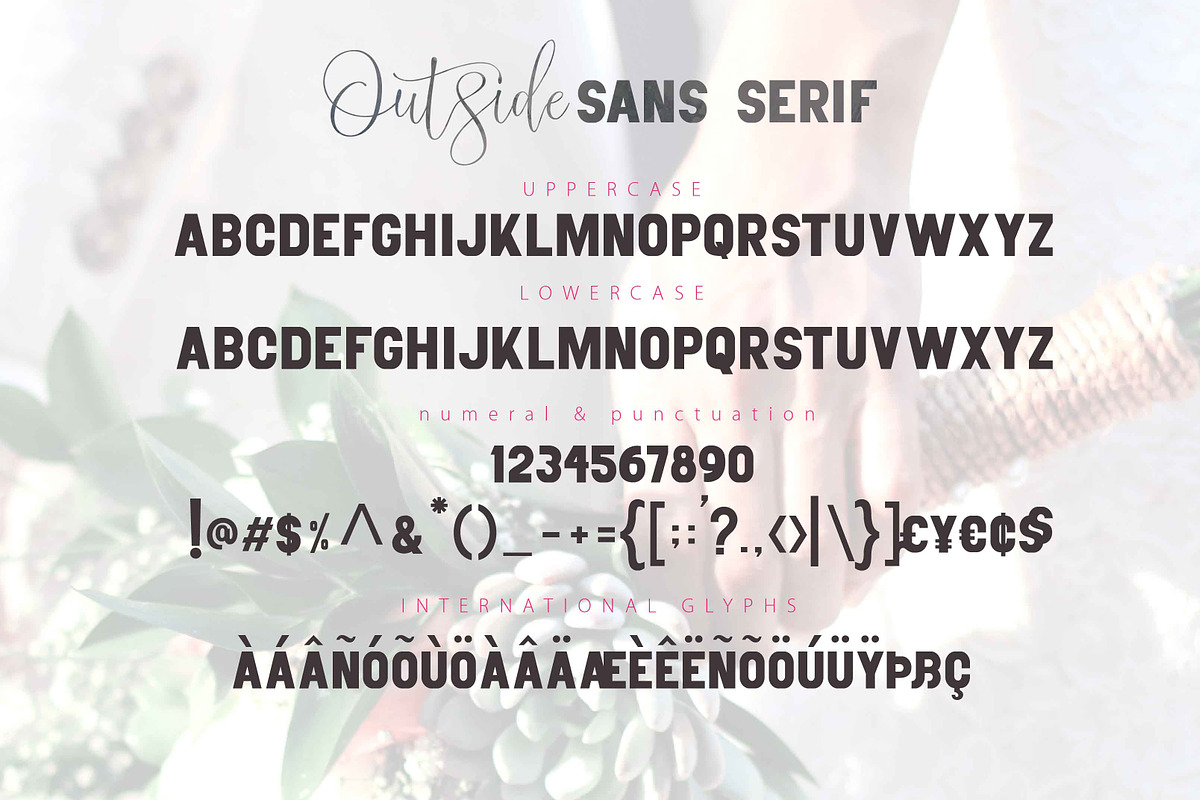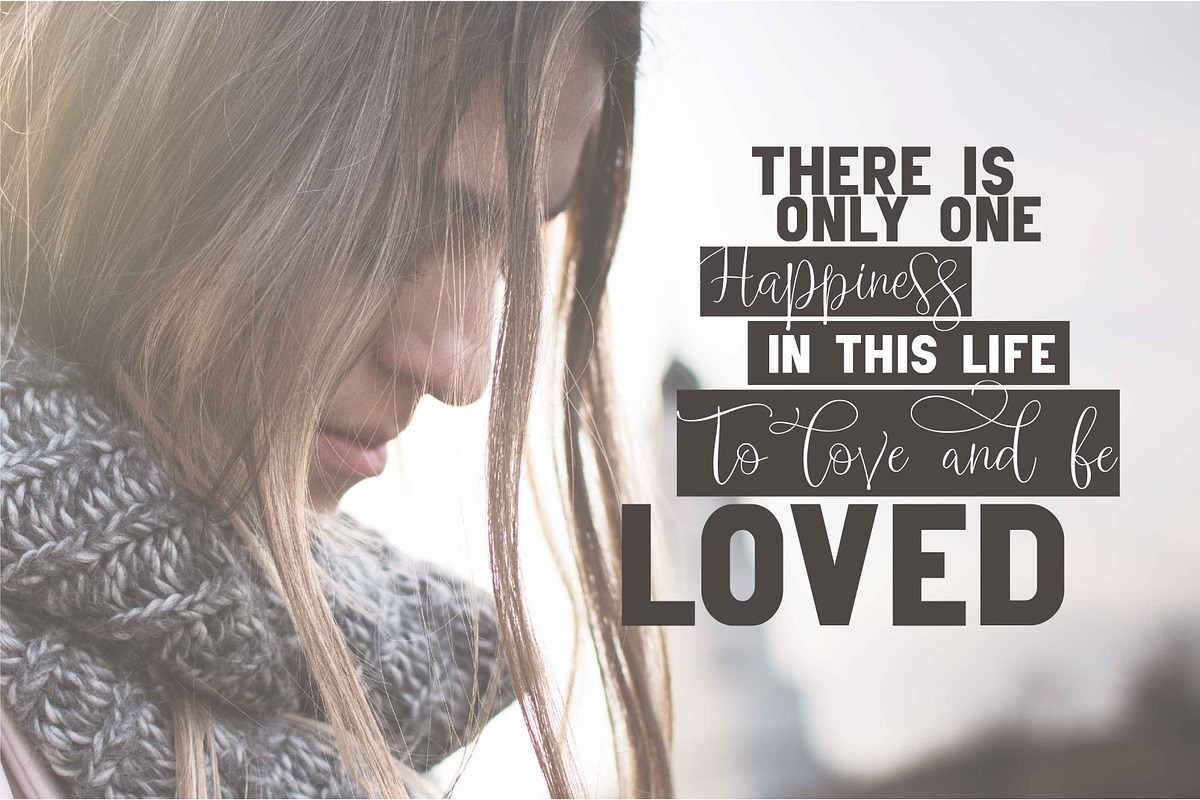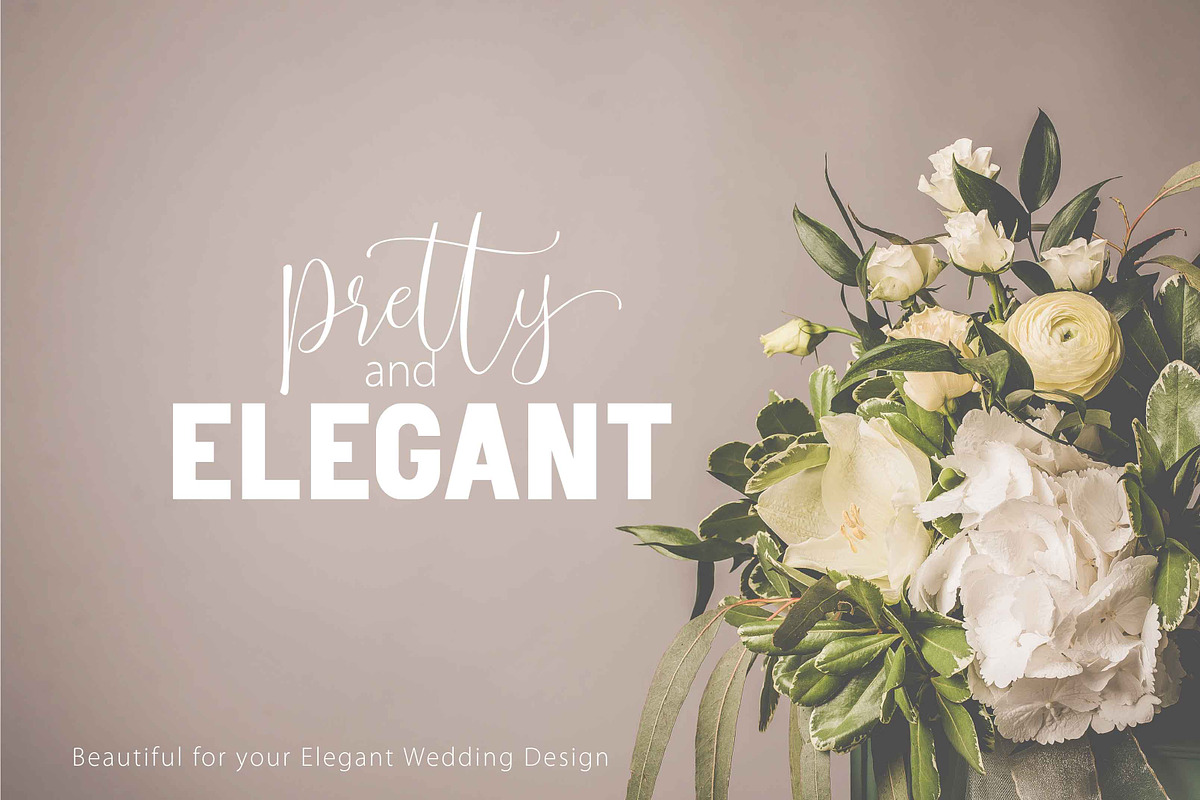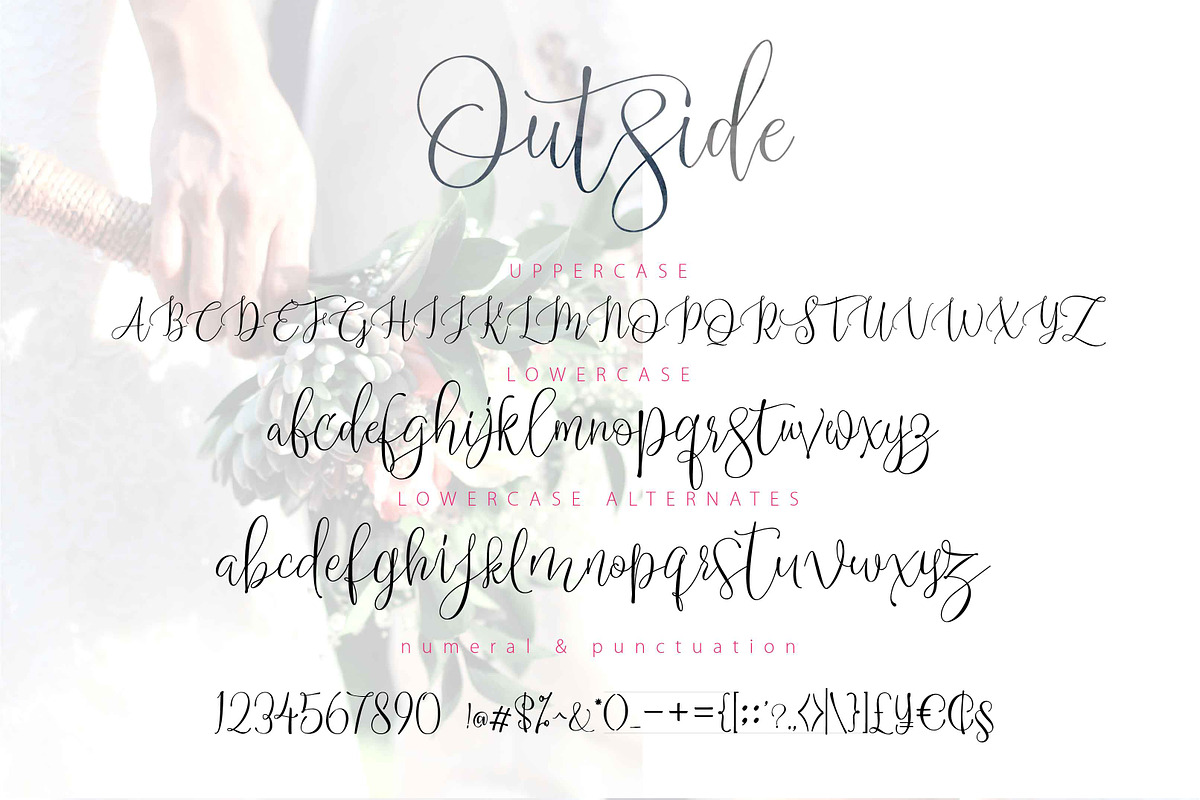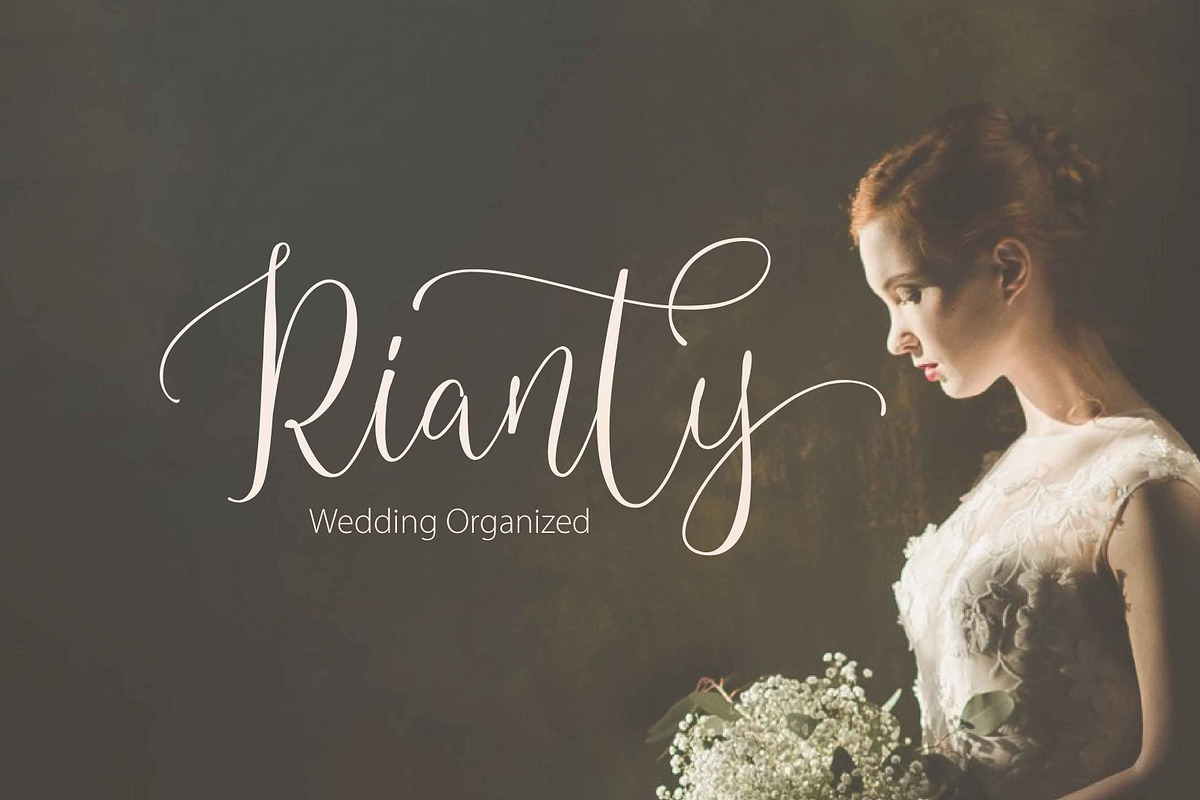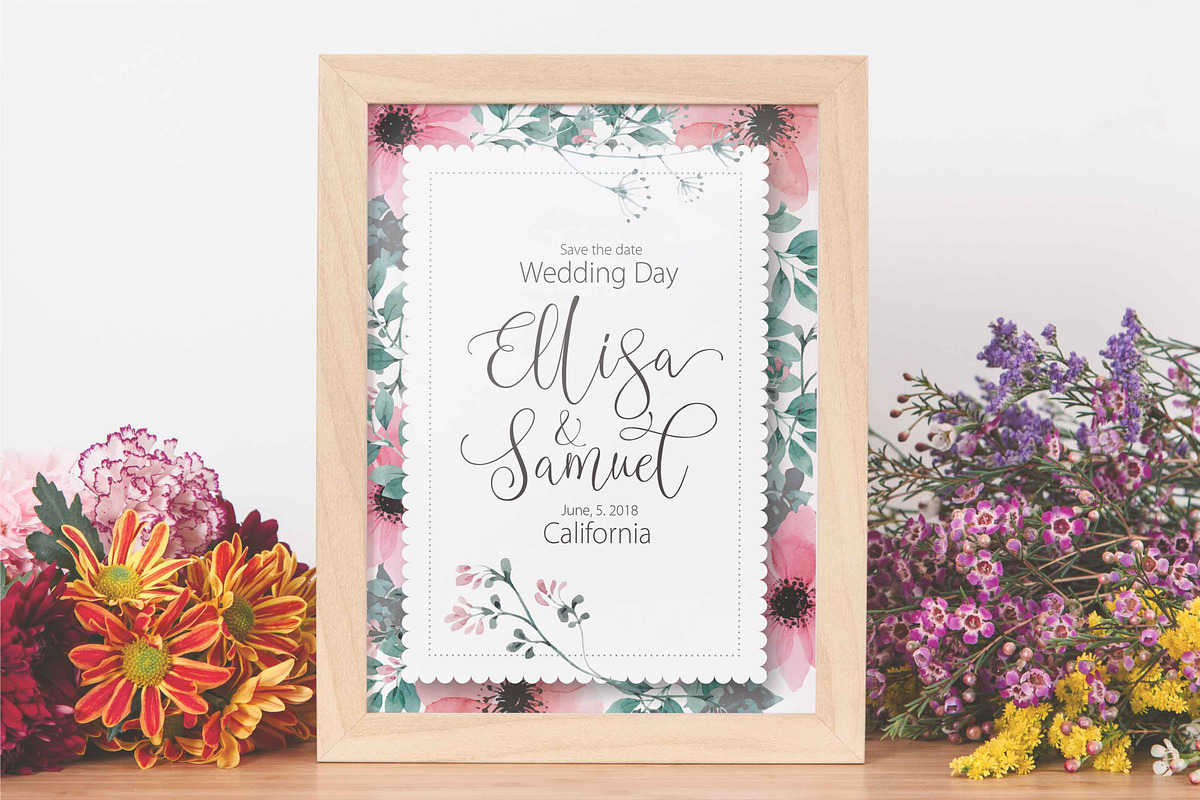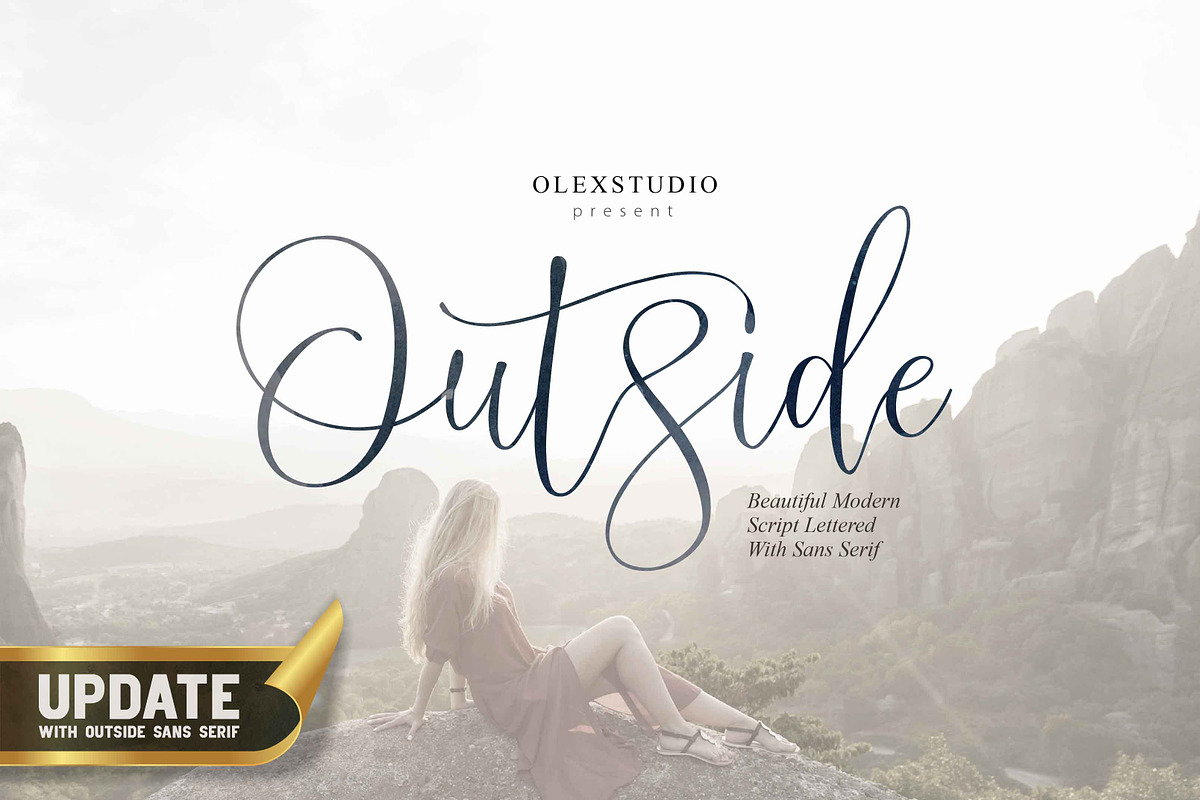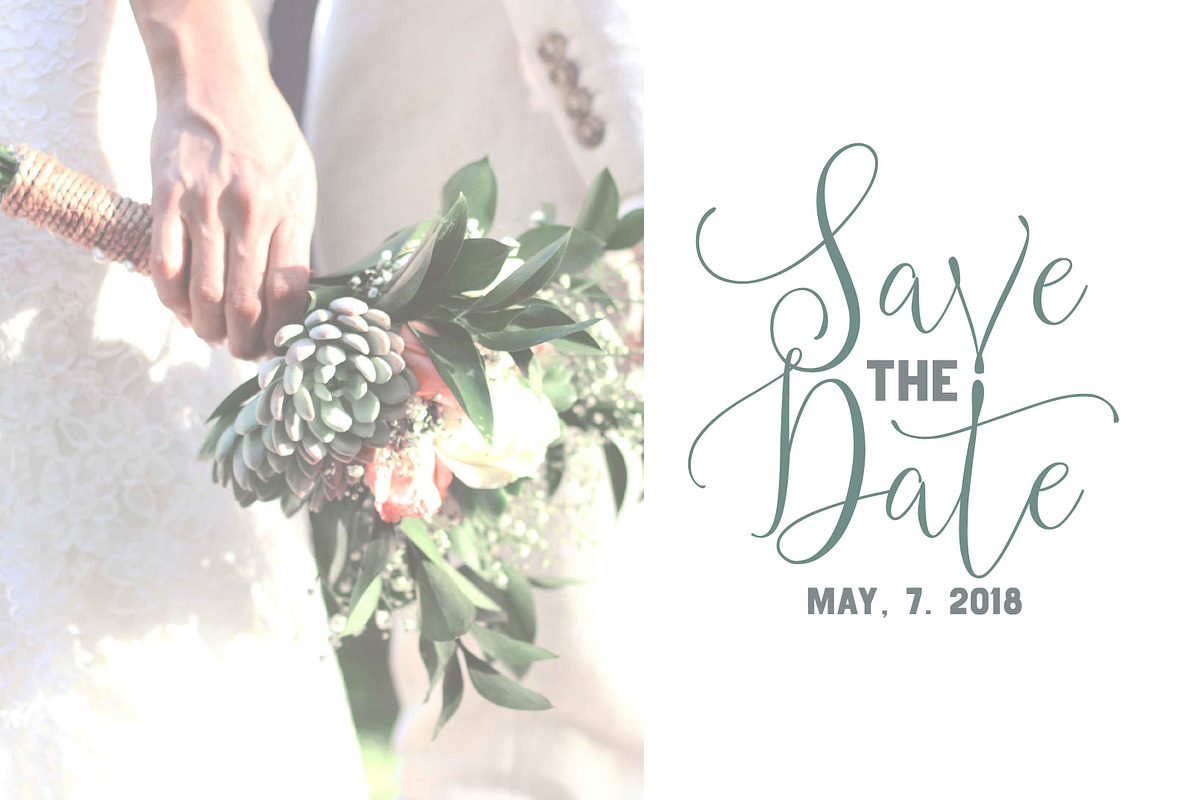
OUTSIDE Font Duo (UPDATE)
OUTSIDE script Font Duo
OUTSIDE script Font Duo is a beautiful Modern Handlettered font Typeface with a Sans Serif font, This Font will look gorgeous on all your designs, wedding invites, branding materials, logo's, t-shirt, poster, business cards, quotes and all project design other.
OUTSIDE Font Duo contains standard characters, lowercase, Lowercase Alternates, Uppercase, numbers, punctuation, ligatures and international glyphs and character standart for a font Sans Serif. You will receive OTF, TTF files and WEB FONT.
OUTSIDE Font Duo (UPDATE) by Olexstudio fits naturally into Branding, posters, packaging, typography.